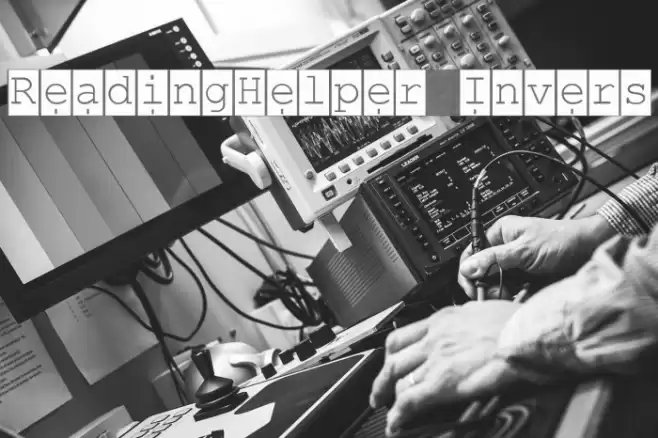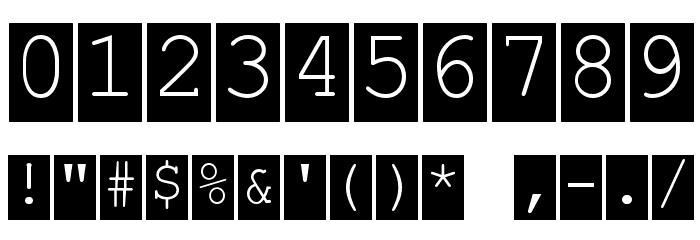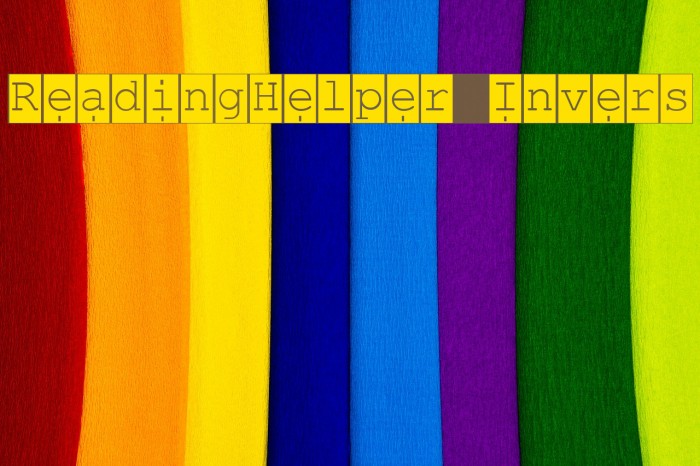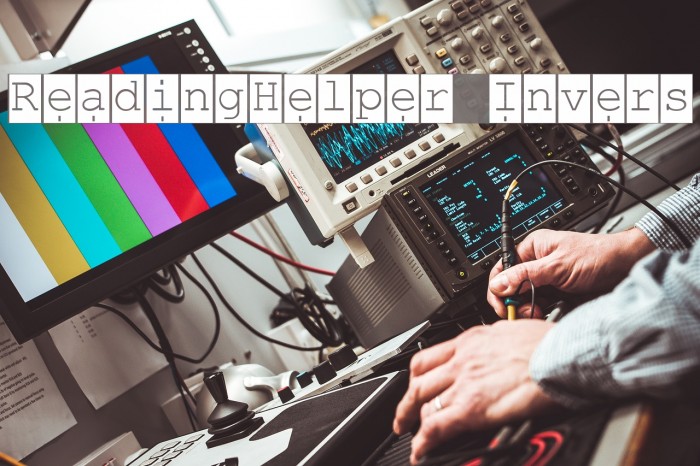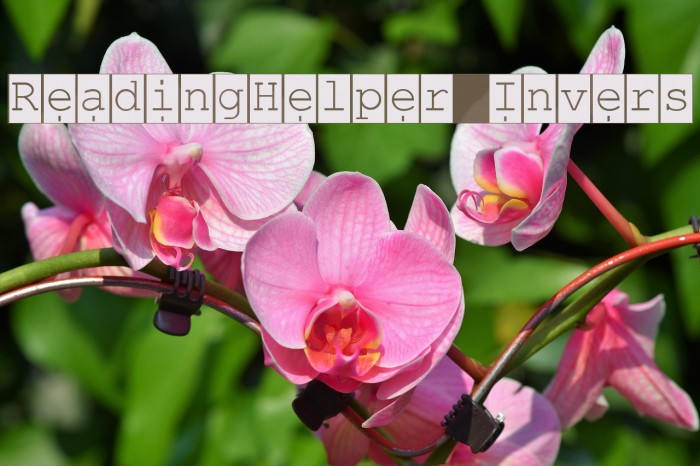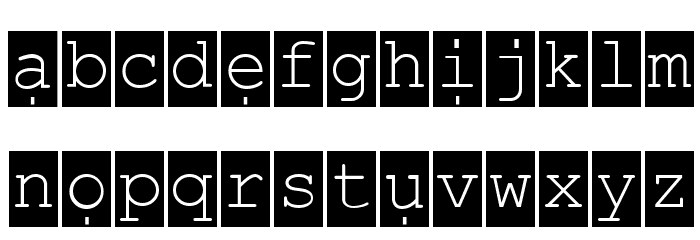
ReadingHelper Invers Font
ReadingHelper Invers Description
This font features a modern and clean design with a monospaced structure, where each character occupies the same amount of horizontal space. The characters are outlined with a thin stroke, giving them a distinct and clear appearance. The uppercase and lowercase letters maintain a consistent height, contributing to a uniform look. The numerals and special characters are designed with the same monospaced approach, ensuring readability and precision. The font's simplicity and clarity make it suitable for technical and coding applications, where alignment and spacing are crucial.
A modern, monospaced font with a clean and uniform design from Uncategorized fonts.
- Proposed Projects: Ideal for coding environments, technical documentation, and any project requiring precise alignment.
- Use Case: Coding, Technical documentation